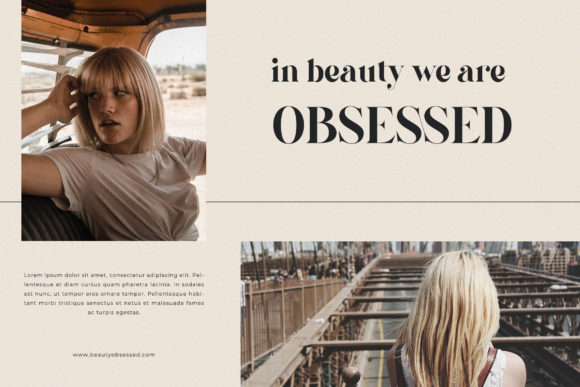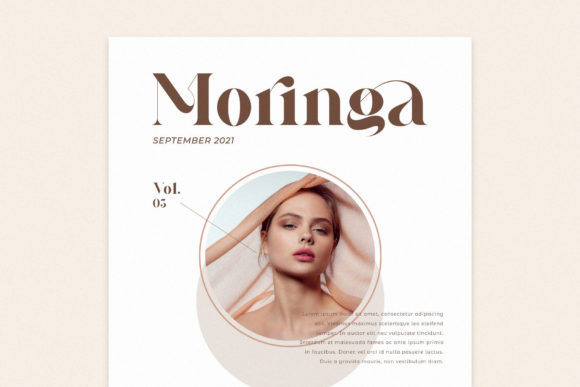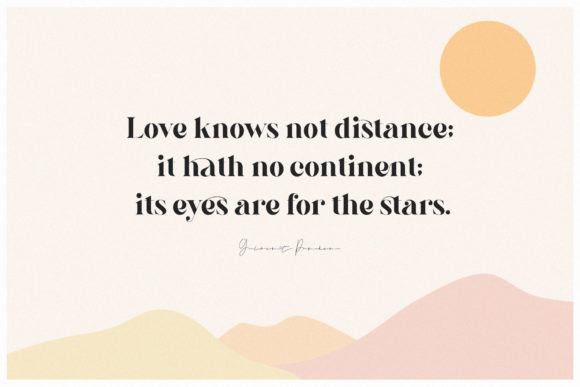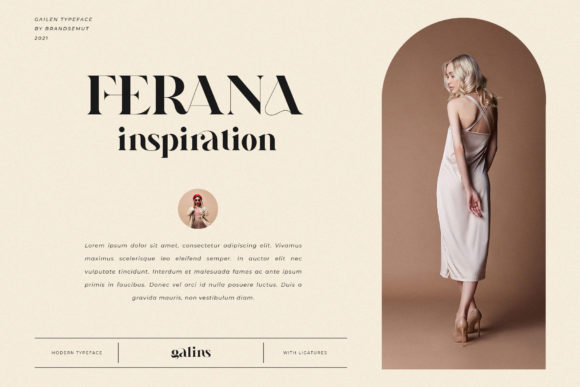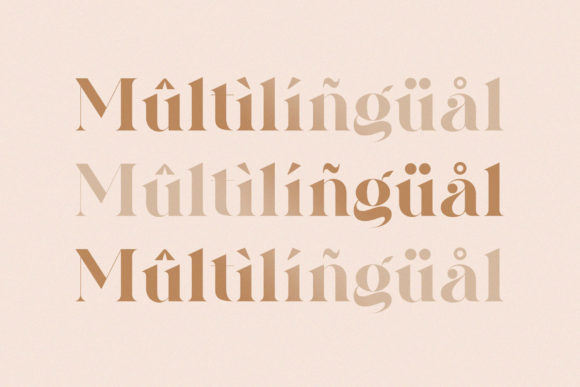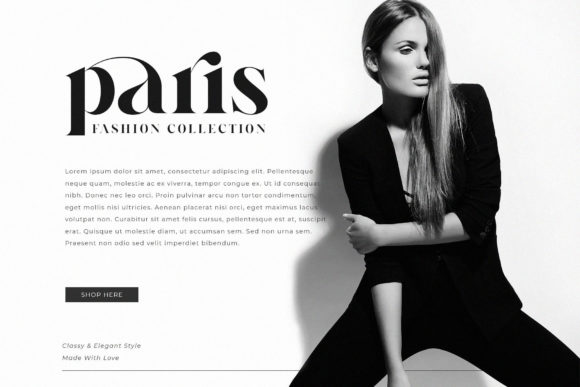
The Designer’s Delight: Galins Font
I’ll never forget the time I was working on a project for a high-end fashion brand, and my client asked me to create a logo that exuded elegance and sophistication. I spent hours scouring font libraries, but nothing seemed quite right. That was until I stumbled upon Galins, a modern and chic lettered serif font. It was love at first sight! ✨
Galins has since become a staple in my font library, and I’m excited to share its awesomeness with you. Whether you’re a designer, crafter, or creative hobbyist, this font is sure to elevate your creations.
- ✨ Modern and Chic: Galins boasts a sleek, contemporary design that’s perfect for fashion, beauty, or lifestyle brands.
- ✅ Highly Versatile: This font can be used for a wide range of projects, from logos and headings to body text and captions.
- 💡 Excellent Legibility: Galins is incredibly easy to read, even at small sizes, making it perfect for digital and print applications.
While Galins is an amazing font, it’s not without its quirks. 🤔 For example:
- ⚠️ Limited Availability of Certain Glyphs: Some users have reported that certain glyphs, such as ligatures or special characters, are not readily available.
- ⚠️ Occasional Kerning Issues: As with any font, kerning can be a bit finicky, especially when pairing Galins with other fonts.
Galins was designed by a talented typographer who drew inspiration from classic serif fonts and modern design trends. The goal was to create a font that was both elegant and approachable, with a unique character that would stand out in any design.
The designer’s passion for typography and commitment to quality are evident in every detail of Galins, from its sleek lines to its exceptional legibility.
| Font Name | Galins Font |
| Author | BrandSemut |